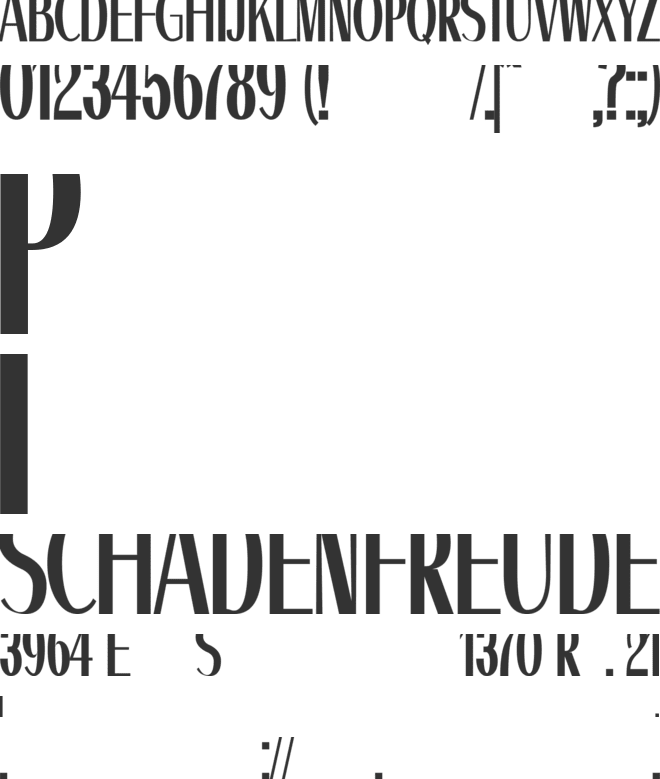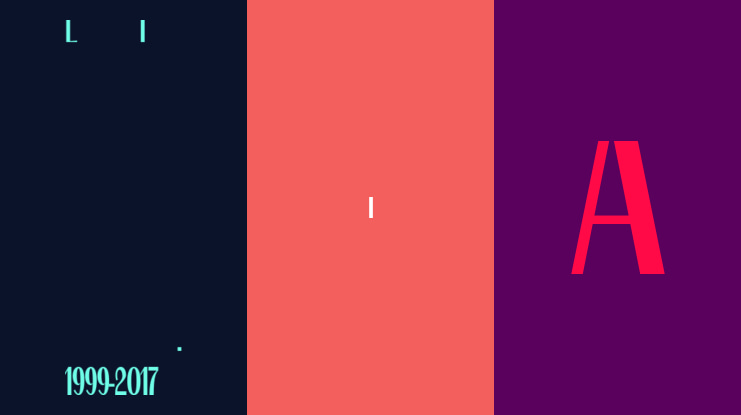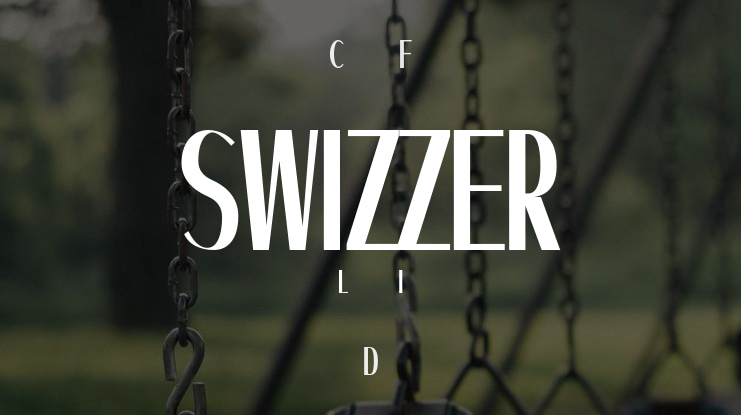
π¨ Font Name: Swizzer by Minimalist Art Studio
π¨ Font Description: Swizzer is a clean, delicate sans serif with subtle elegance and multilingual support, ideal for refined branding and editorial layouts.
β Complete Latin set + multilingual diacritics
β Alternates, stylistic sets & ligatures
β Numbers, small caps, and extended punctuation
β Bonus italics and family styles